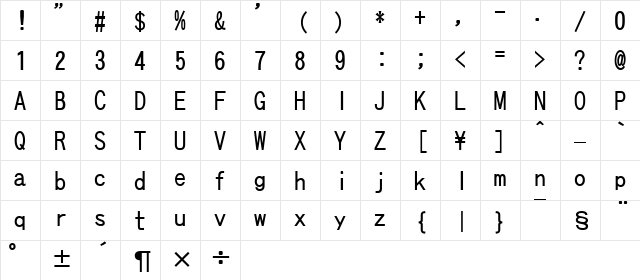
FCȏ0 Regular
Design Context for FCȏ0
FCȏ0 is a composed and adaptable typeface that performs quietly and consistently across a wide range of design contexts.